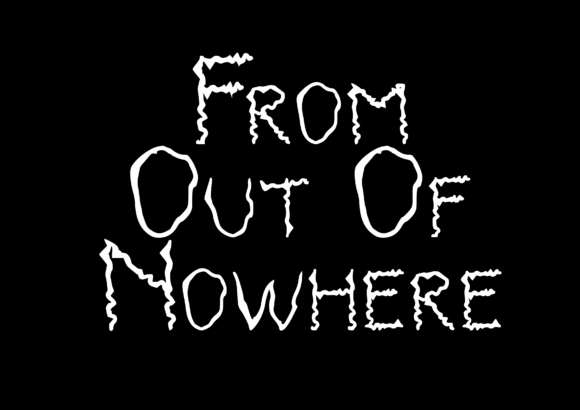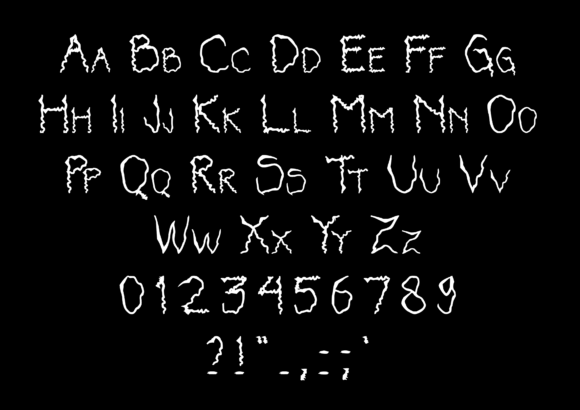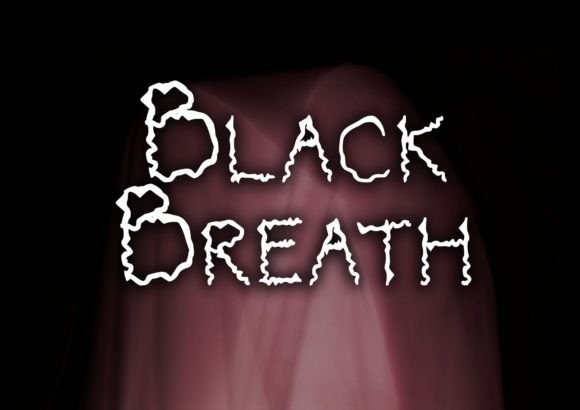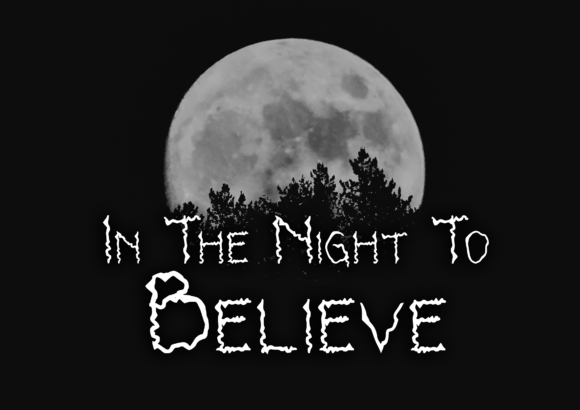
Introduction to Necro Ghoul Font
Necro Ghoul is a display font made in a horror and spooky style.
Necro ghoul is inspired by thriller and horror movies and Halloween, which makes its visual appearance spooky and annoying Necro Ghoul can be used for celebrating Halloween, your brand, design projects, your business, Halloween posters, posters design, and other projects.